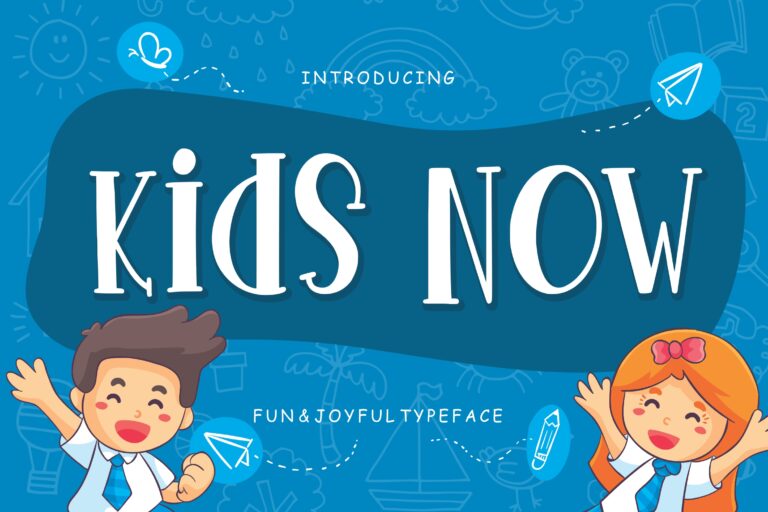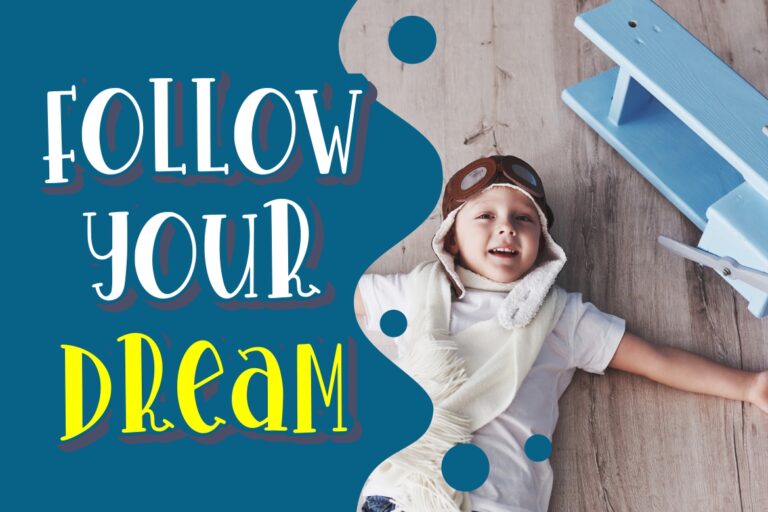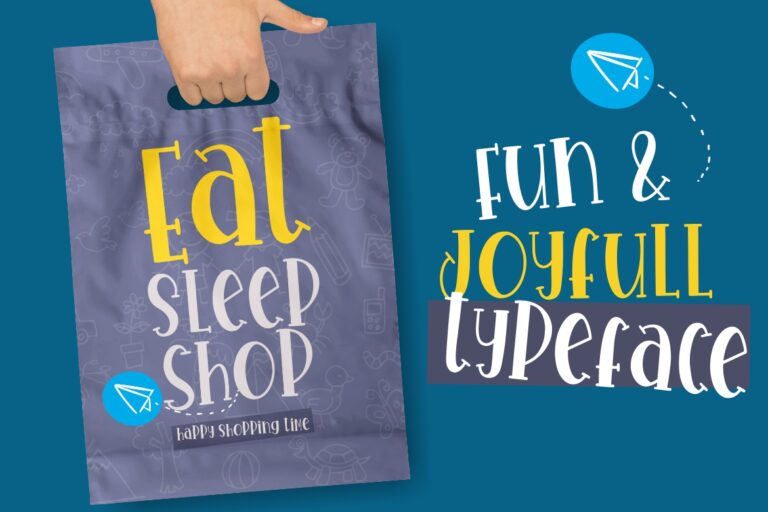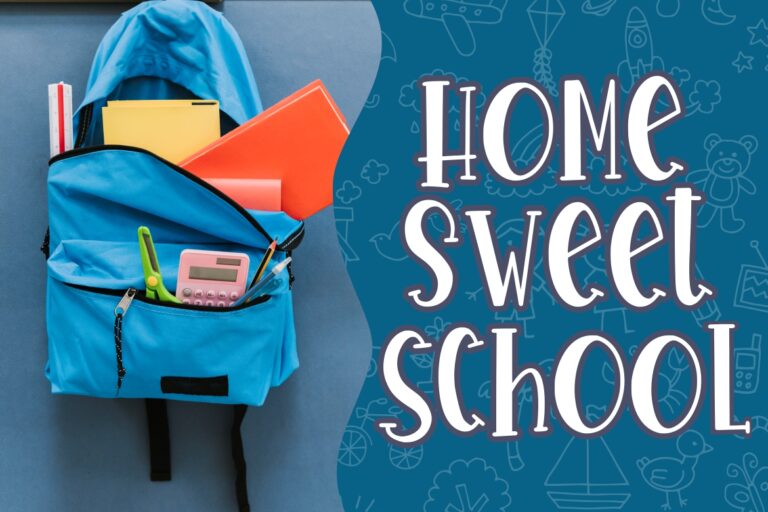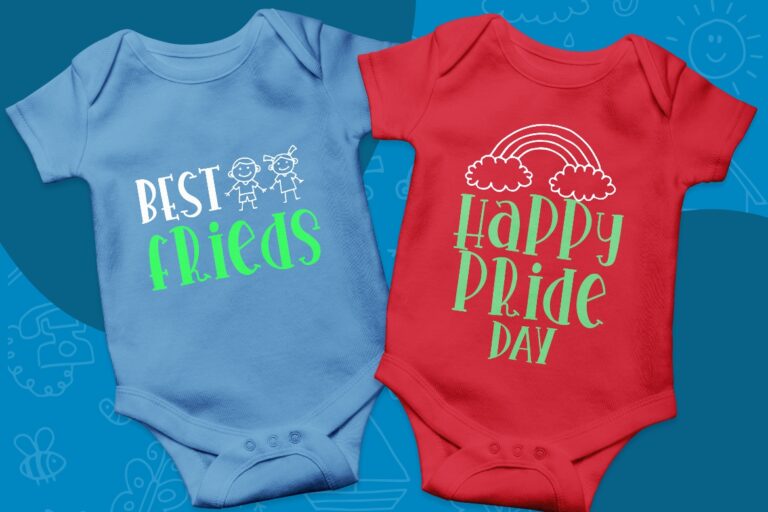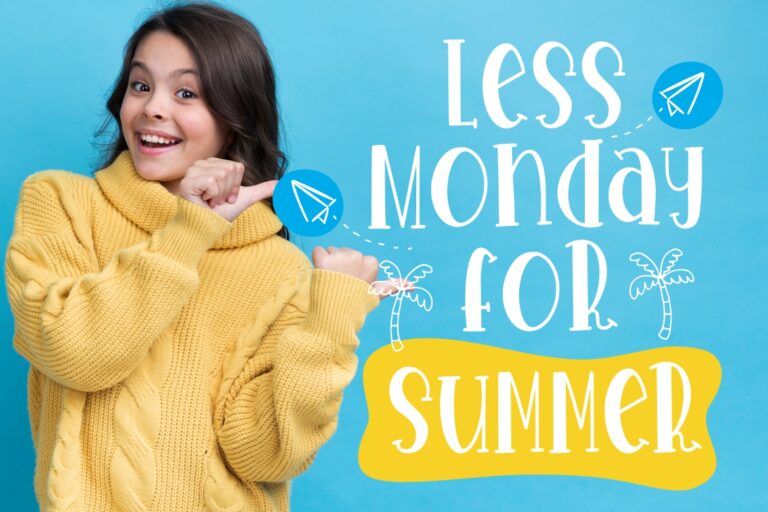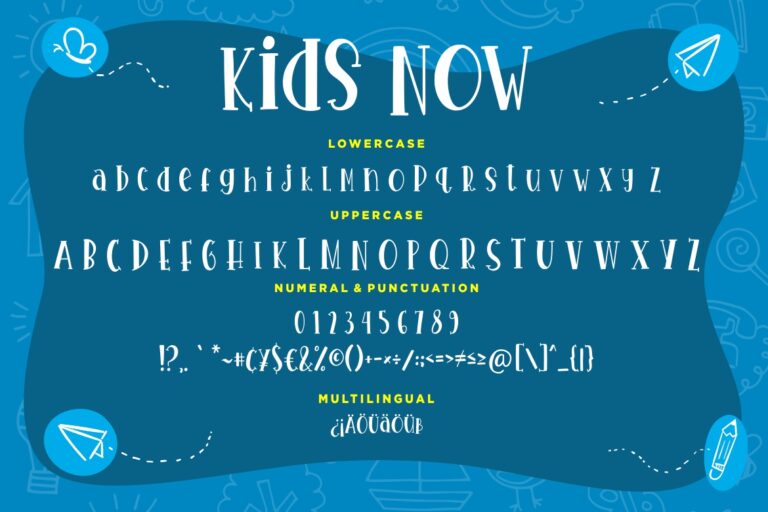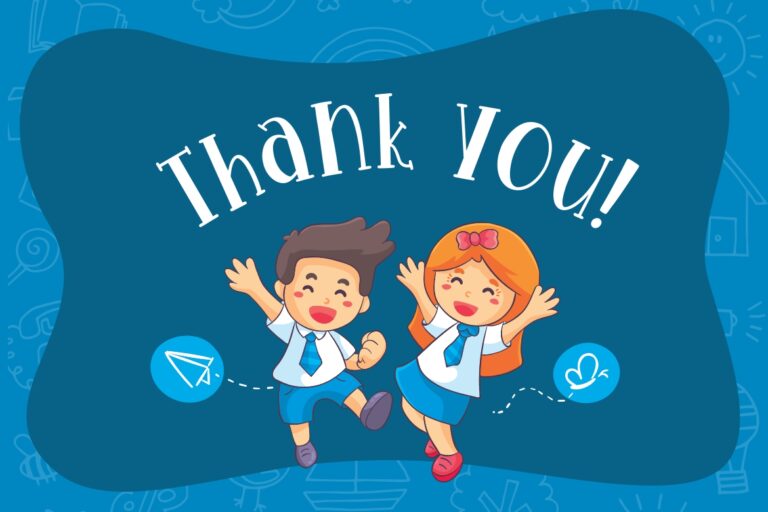
Kids Now Fun & Joyful Typeface
Kids Now is playful display font which suitable to use for children related occasion.
Kids Now is perfect for branding projects, logo, wedding designs, social media posts, advertisements, product packaging, product designs, label, photography, watermark, invitation, stationery and any projects that need handwriting taste.
- Fonts include multilingual support for; ä ö ü Ä Ö Ü ß ¿ ¡